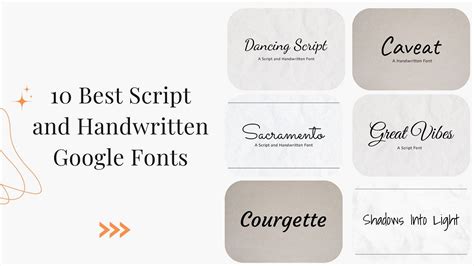
18 Best Free Google Handwriting Fonts for 2017 Logical Media Group
Google Handwritten Fonts. Web making the web more beautiful, fast, and open through great typography Web just another hand is a narrow brush drawn handwriting font, inspired by the handwriting of my high school days.
18 Best Free Google Handwriting Fonts for 2017 Logical Media Group
Web just another hand is a narrow brush drawn handwriting font, inspired by the handwriting of my high school days. Web making the web more beautiful, fast, and open through great typography
Web just another hand is a narrow brush drawn handwriting font, inspired by the handwriting of my high school days. Web making the web more beautiful, fast, and open through great typography Web just another hand is a narrow brush drawn handwriting font, inspired by the handwriting of my high school days.